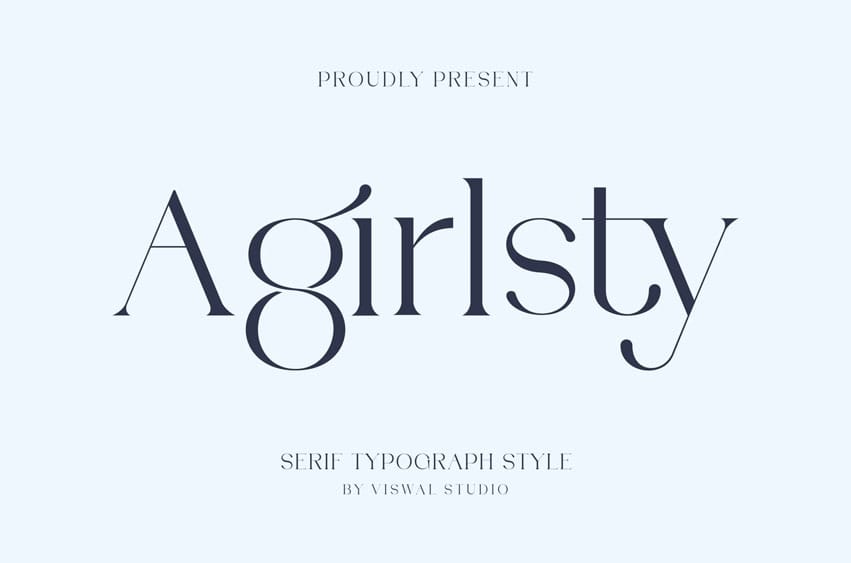
Agirlsty Font Is A Modern Stylish Luxury Font. Can Make It Easier To Convey The Message In Your Design. Font Is Suitable For Logo, Labels, Badge, Branding, Magazine, Poster, Title, Gigs, Covers And Etc. Our Fonts Have Uppercase & Lowercase, Numeral & Punctuation, And Opentype Features.